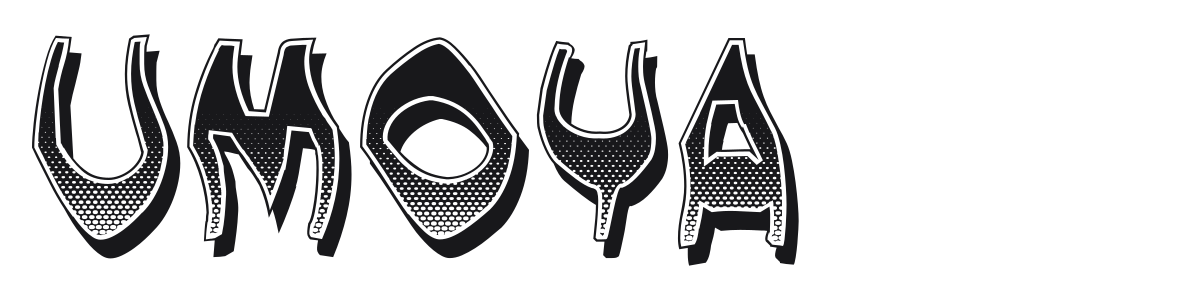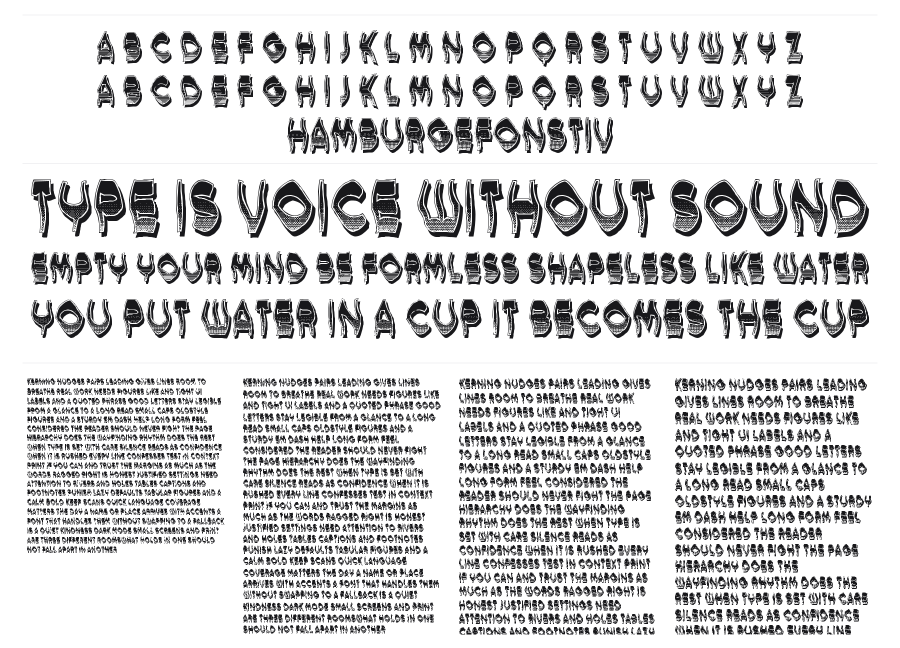
Umoya
Umoya is a psychedelic bubble display face with heavy rounded strokes, halftone dot fills, and a bold black outline that gives each letter a pressed, almost inflated three-dimensional quality. The design pulls directly from 1960s and 1970s counterculture poster lettering, bringing an unmistakable funky energy to headlines and album artwork. It works best large, where the layered detail reads clearly.